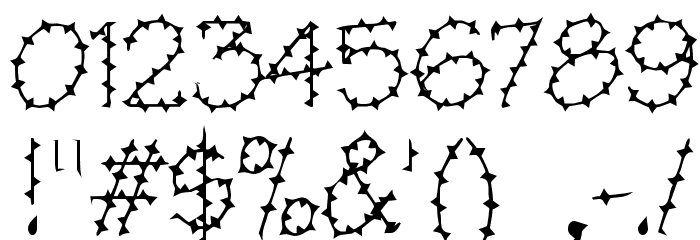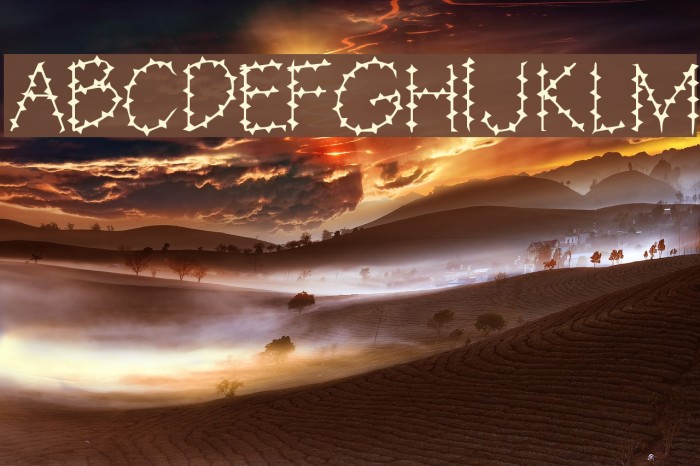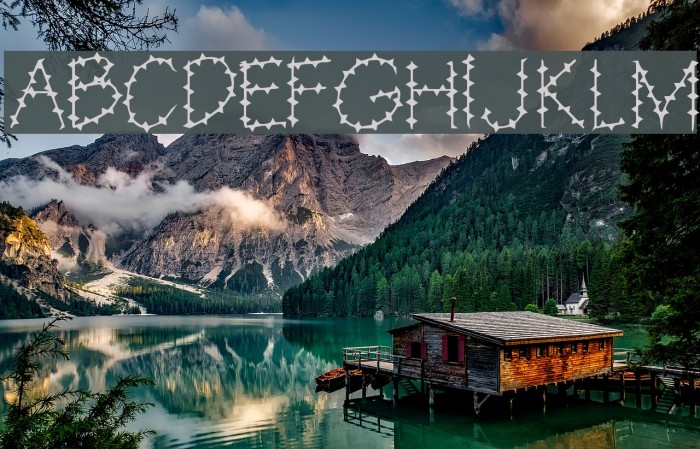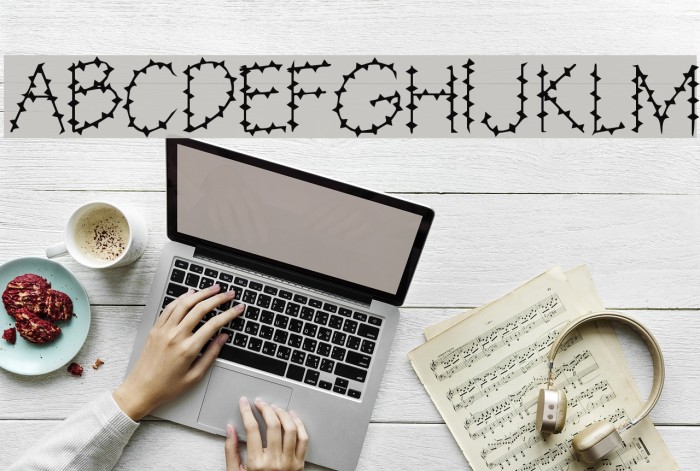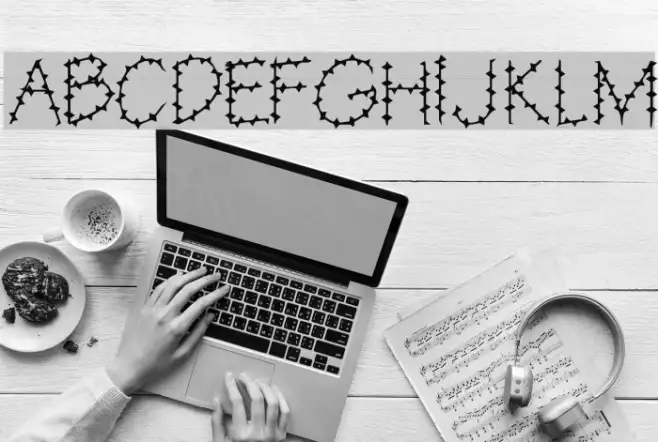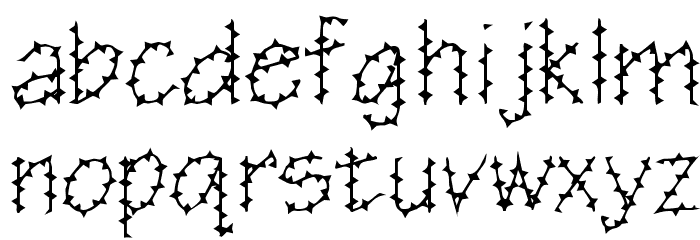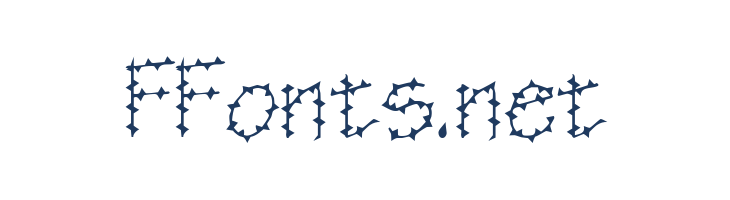
BarbedWire Font
BarbedWire Description
This font features a unique and edgy design, resembling barbed wire. Each character is crafted with sharp, pointed edges and a rugged appearance, giving it a distinct and rebellious look. The uppercase and lowercase letters maintain a consistent style, with a rough texture that mimics the intertwined strands of barbed wire. Numbers and special characters follow the same theme, ensuring a cohesive visual identity. This font is perfect for projects that require a bold, unconventional aesthetic, such as posters, album covers, or themed event materials.
| Proposed Projects | Ideal for posters, album covers, themed events, or any project needing a bold, rebellious look. |